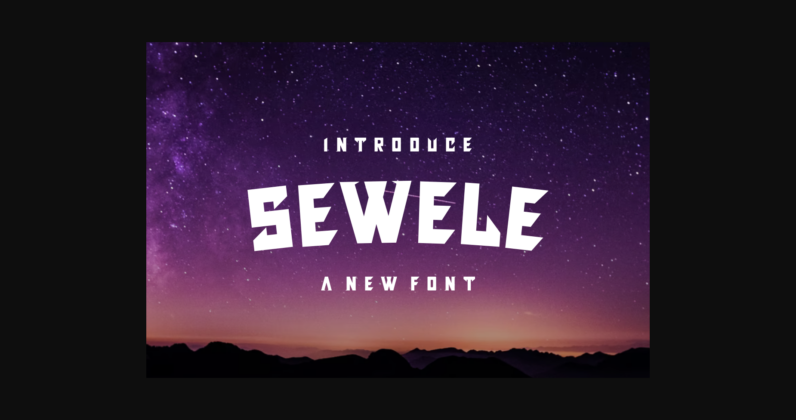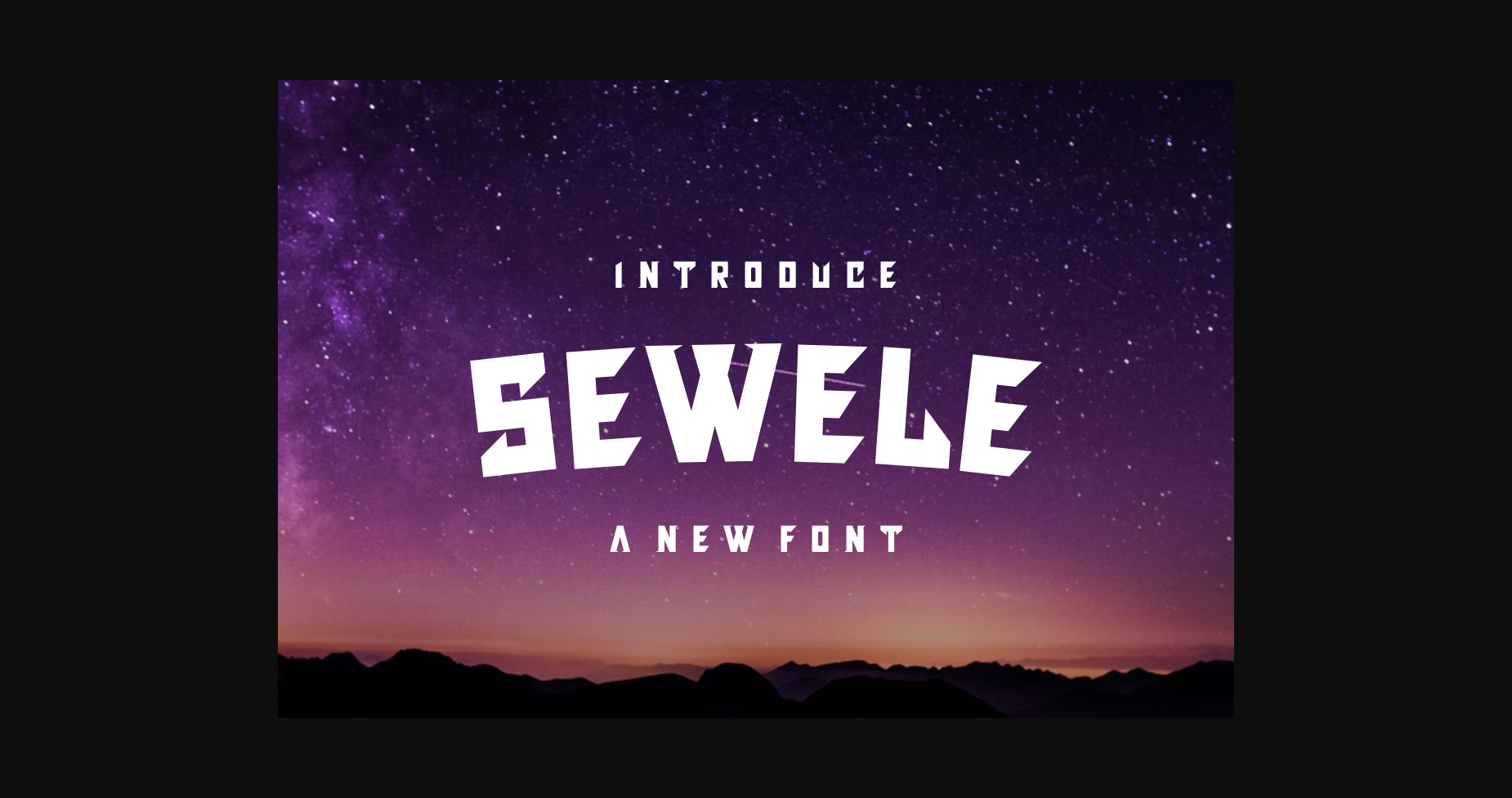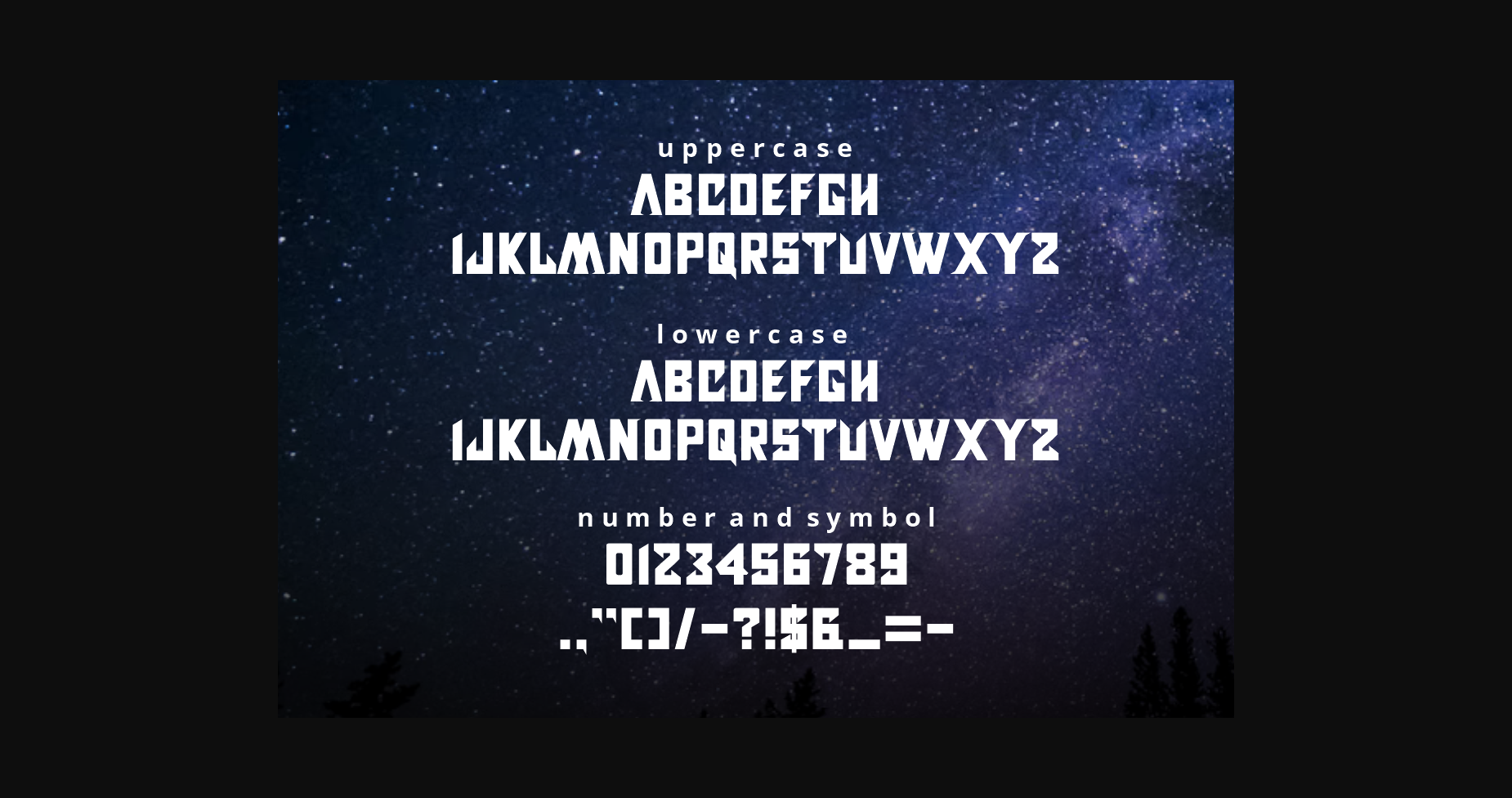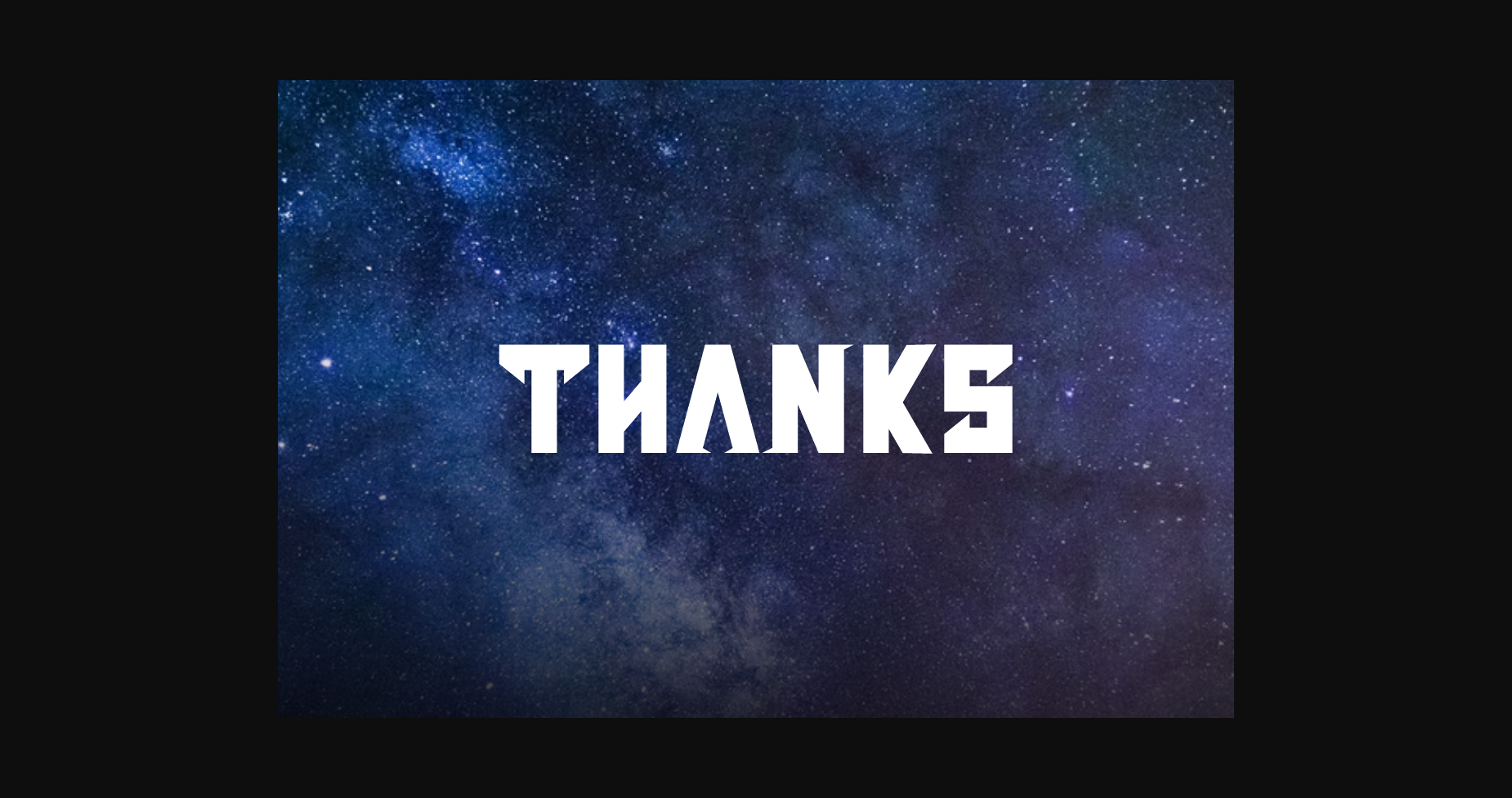
Sewele Font
About Sewele Font
Sewele is a bold display font that works great on designs related to either speed or power. Add it confidently to your projects, and you will love the results.